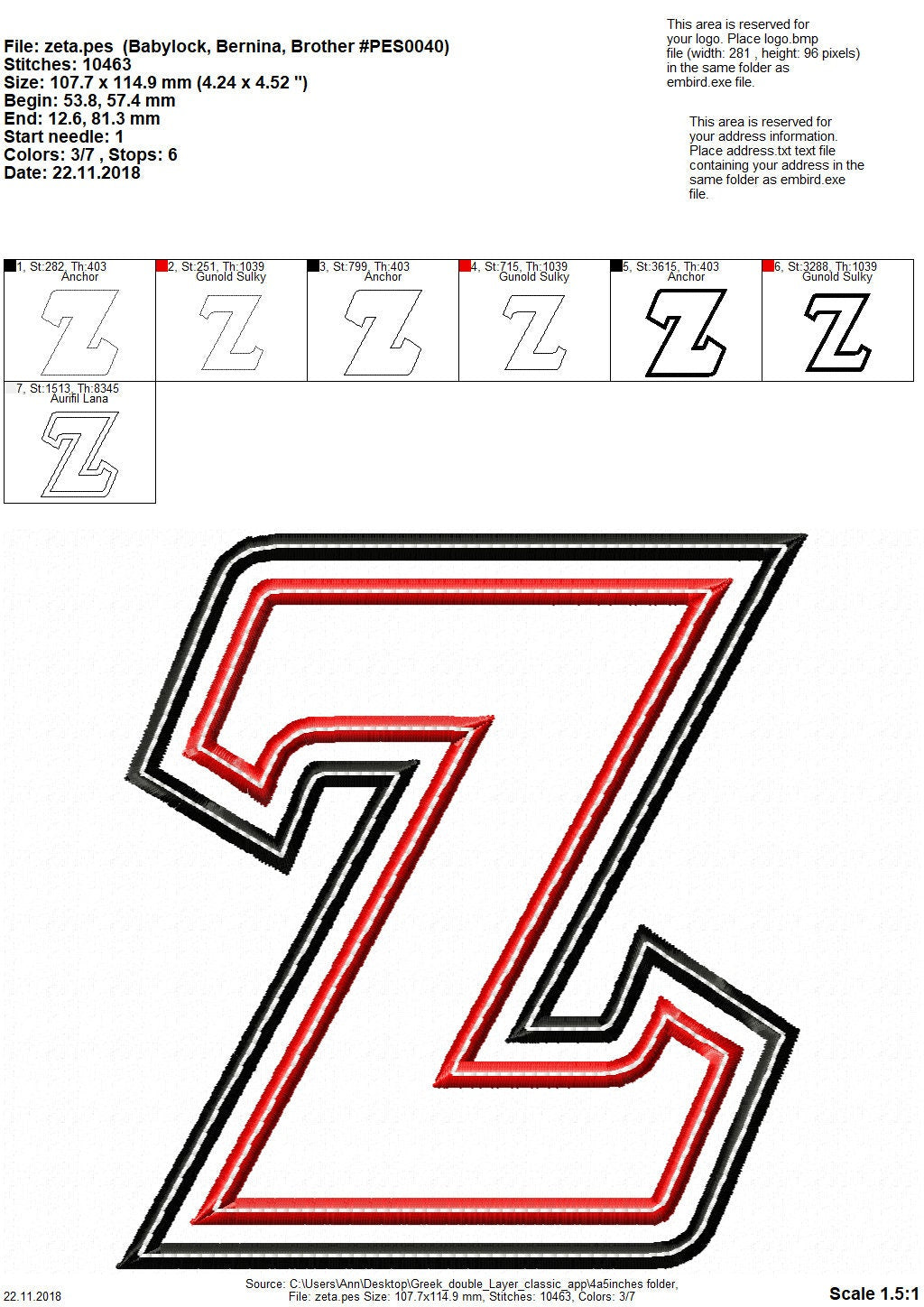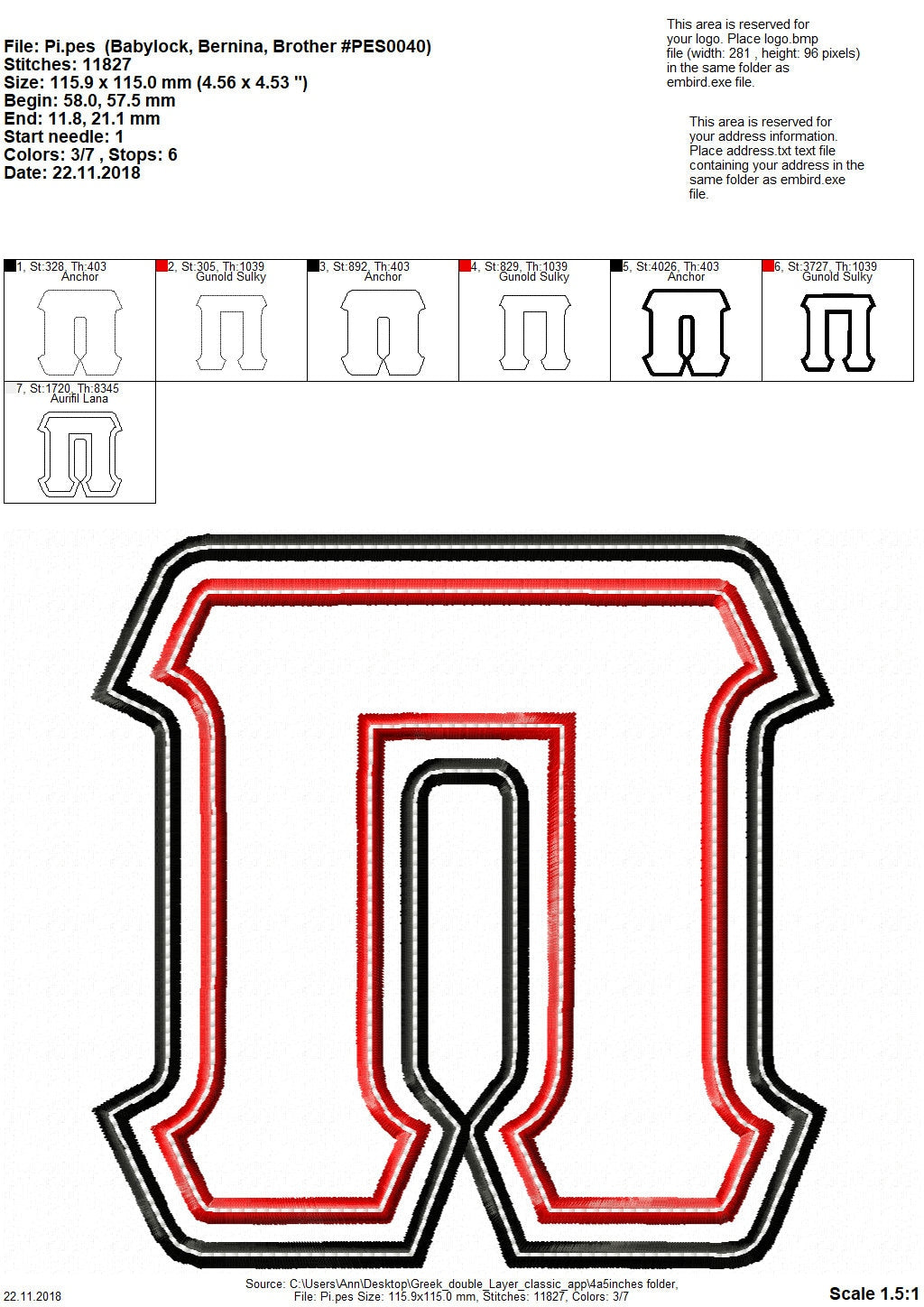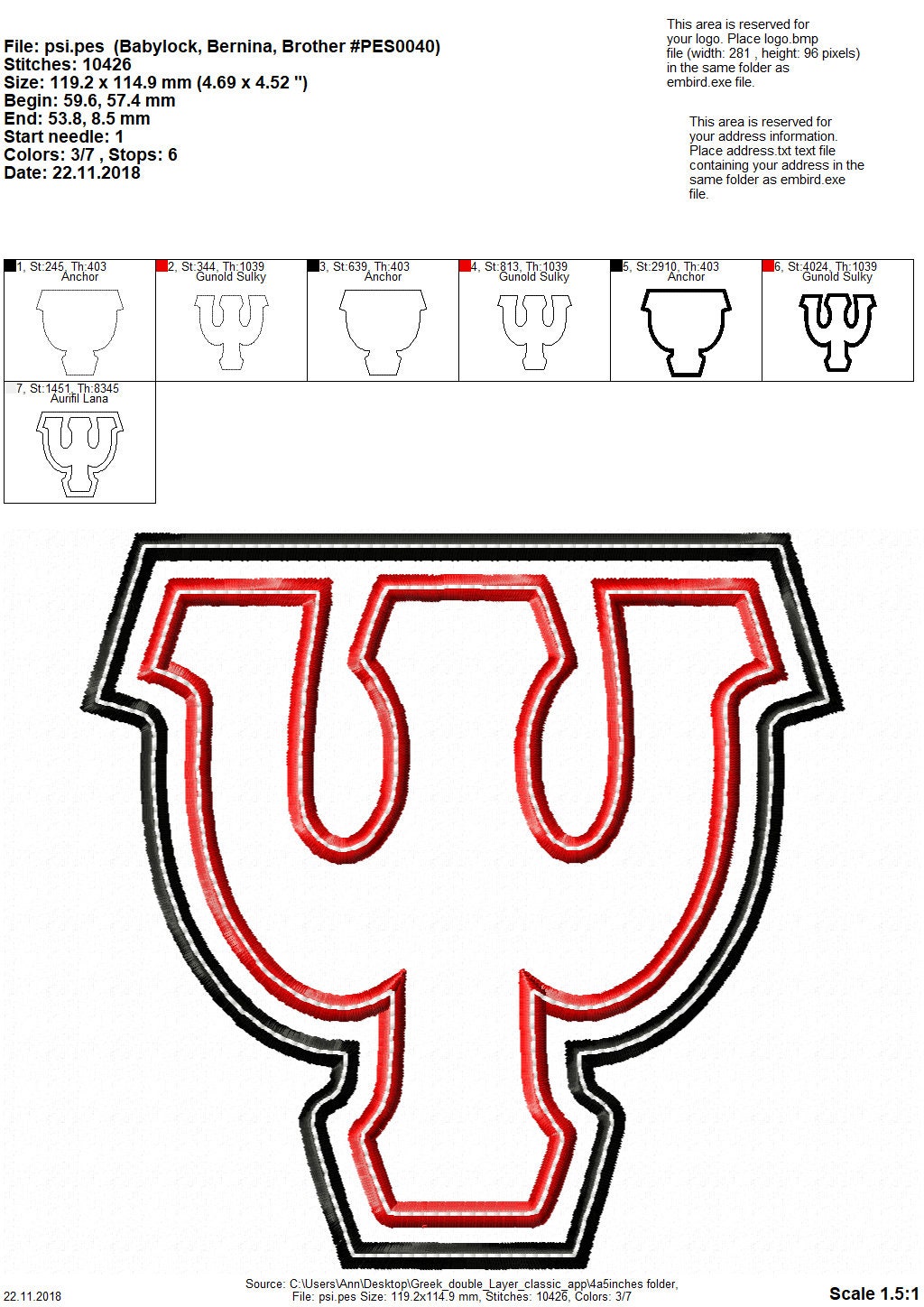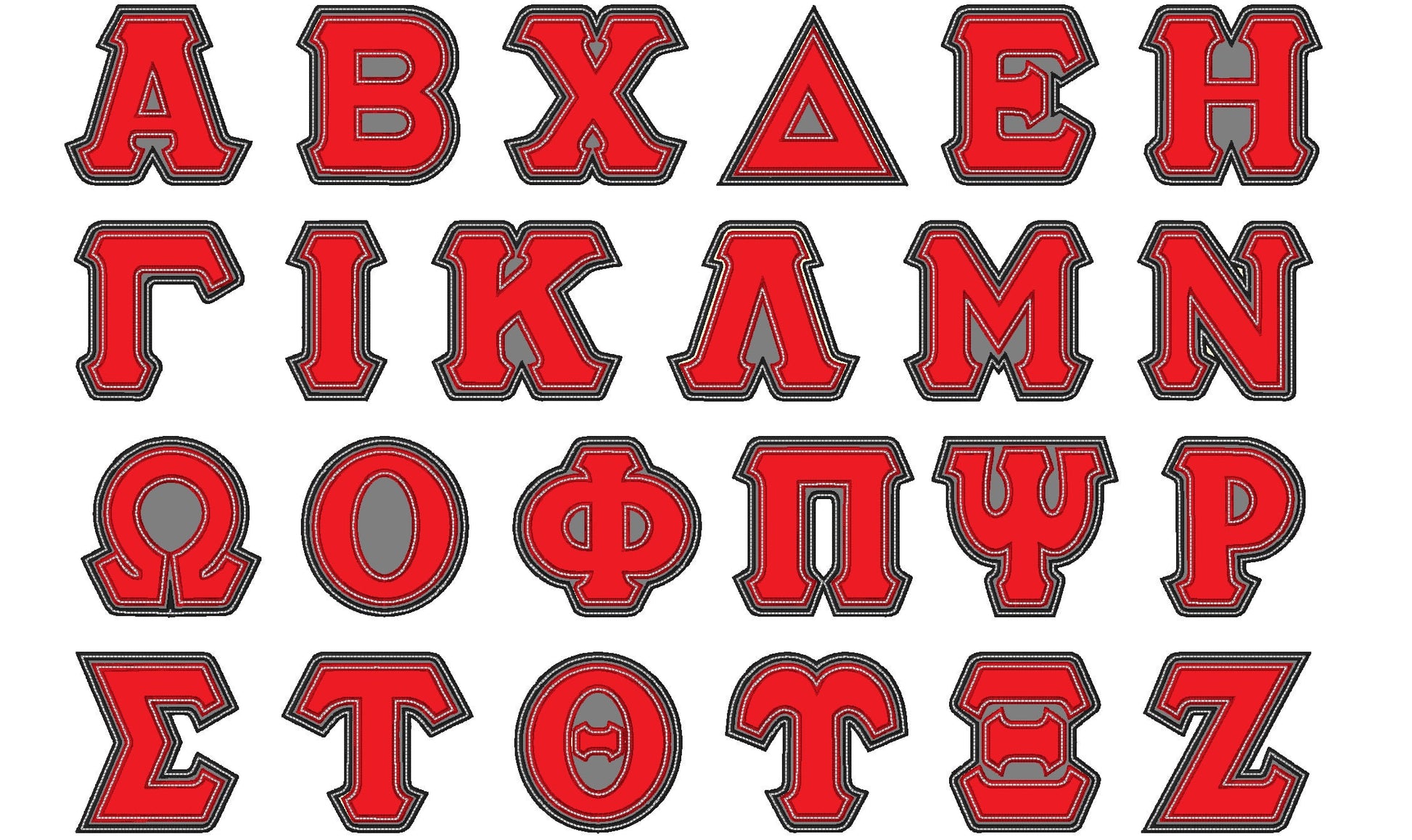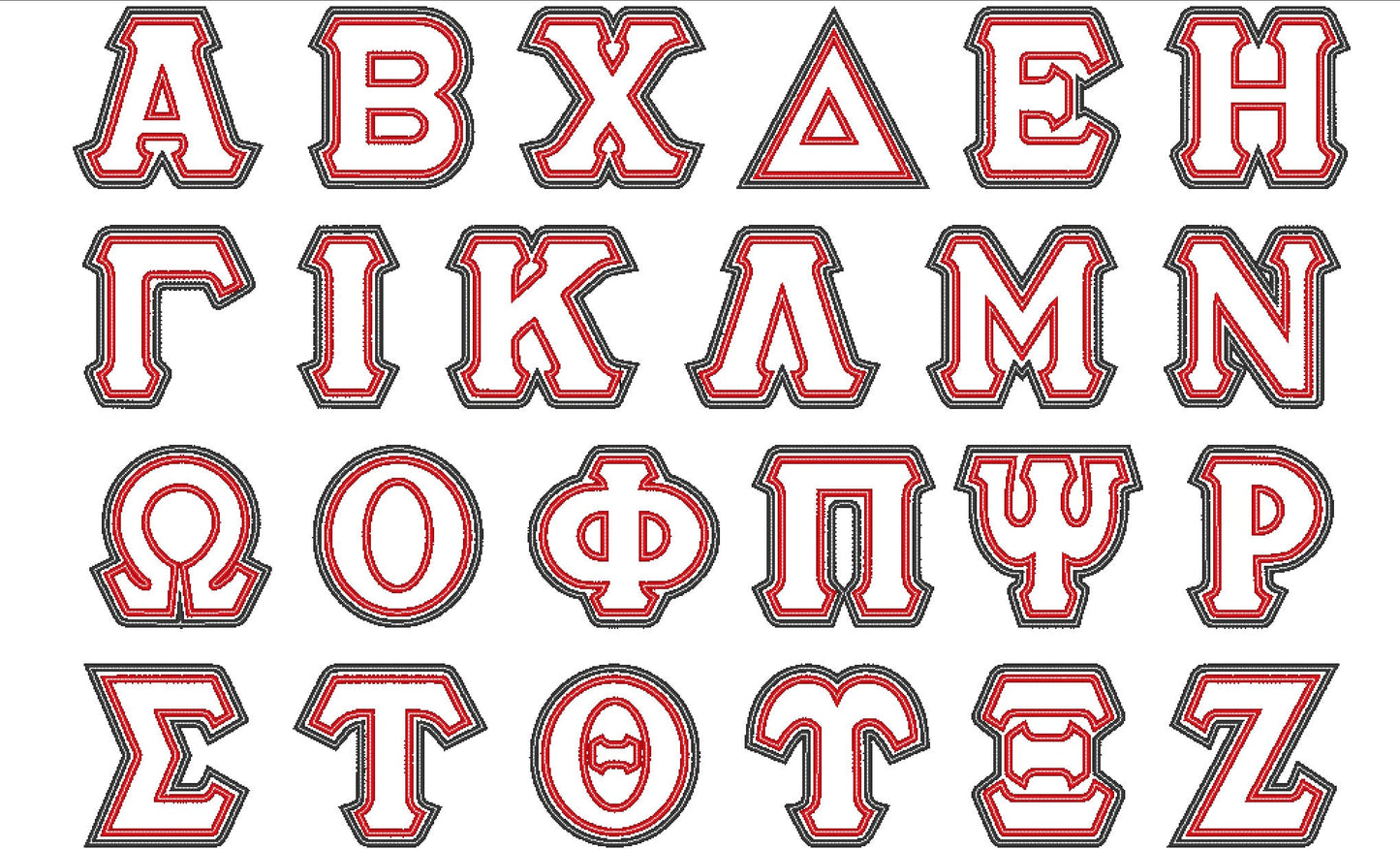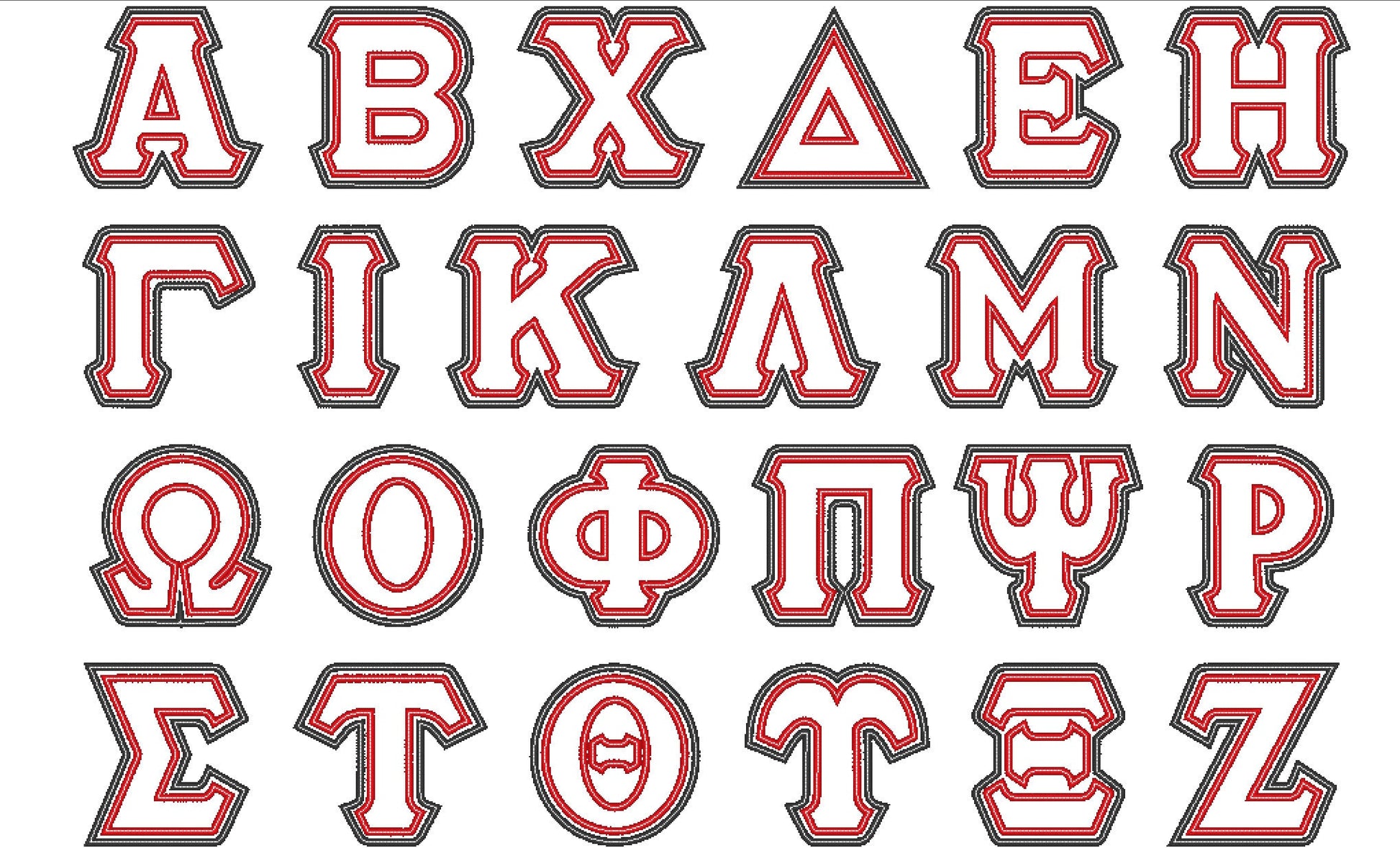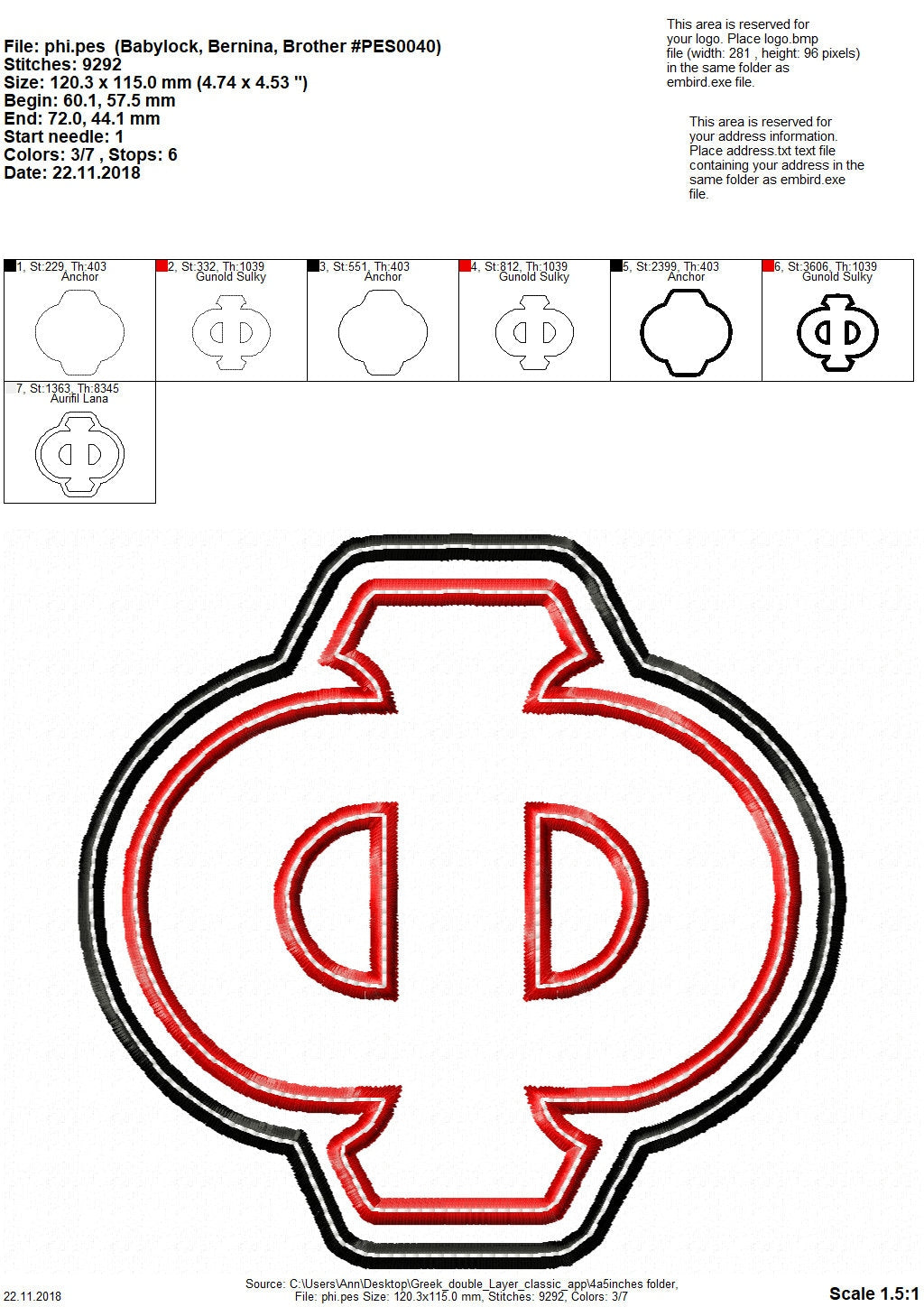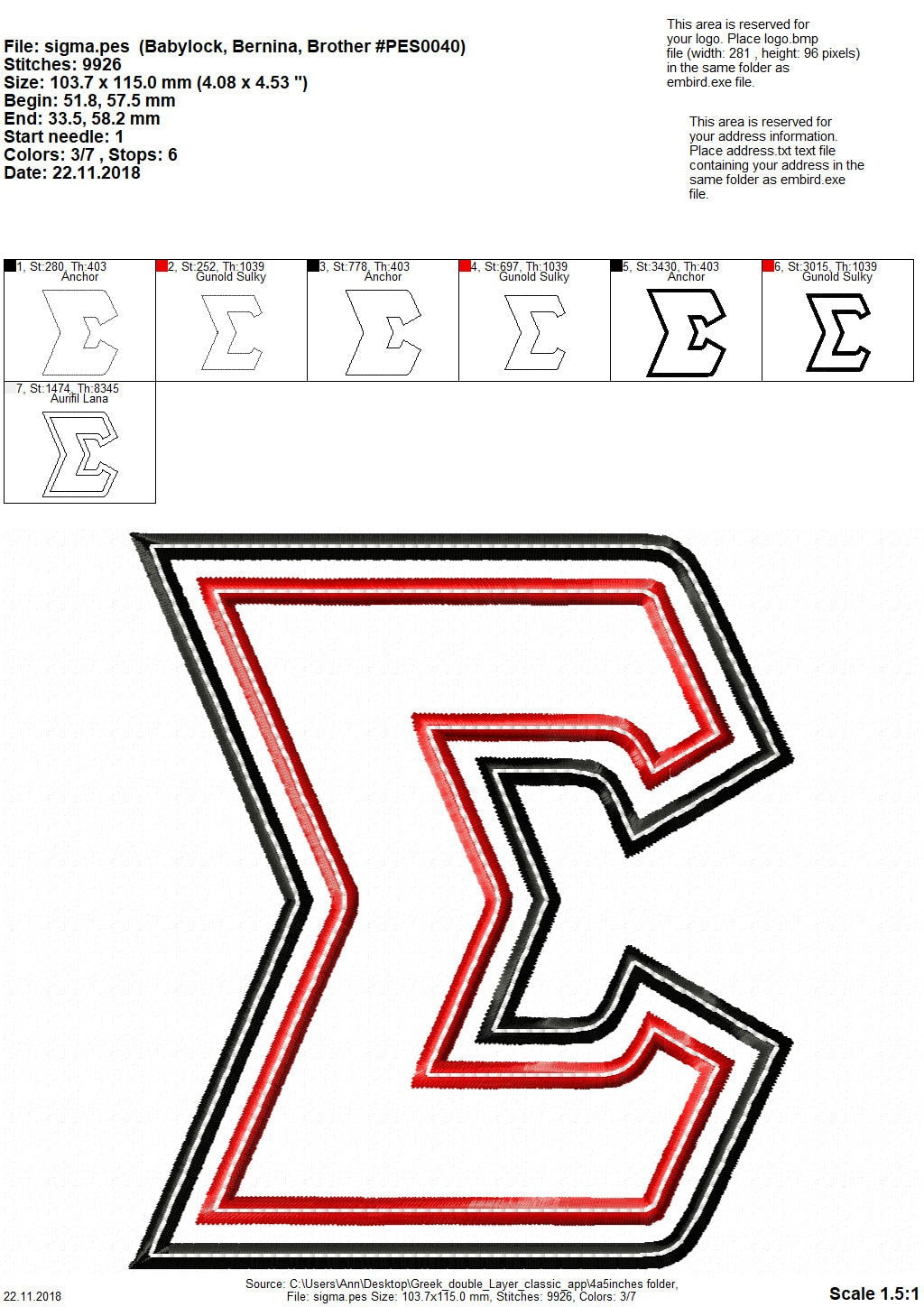
Or click to open the linkThe whole Greek alphabet as a two-layer applique font with a classic satin edge, for sorority and fraternity letters. Great on jerseys, sweatshirts and bags.
All 24 Greek letters as a two-step double applique, in five sizes: 3, 4, 4.5, 5 and 5.5 inches. A classic satin edge plus a neat top stitch keeps the applique secure in the wash; the last top stitch is optional.